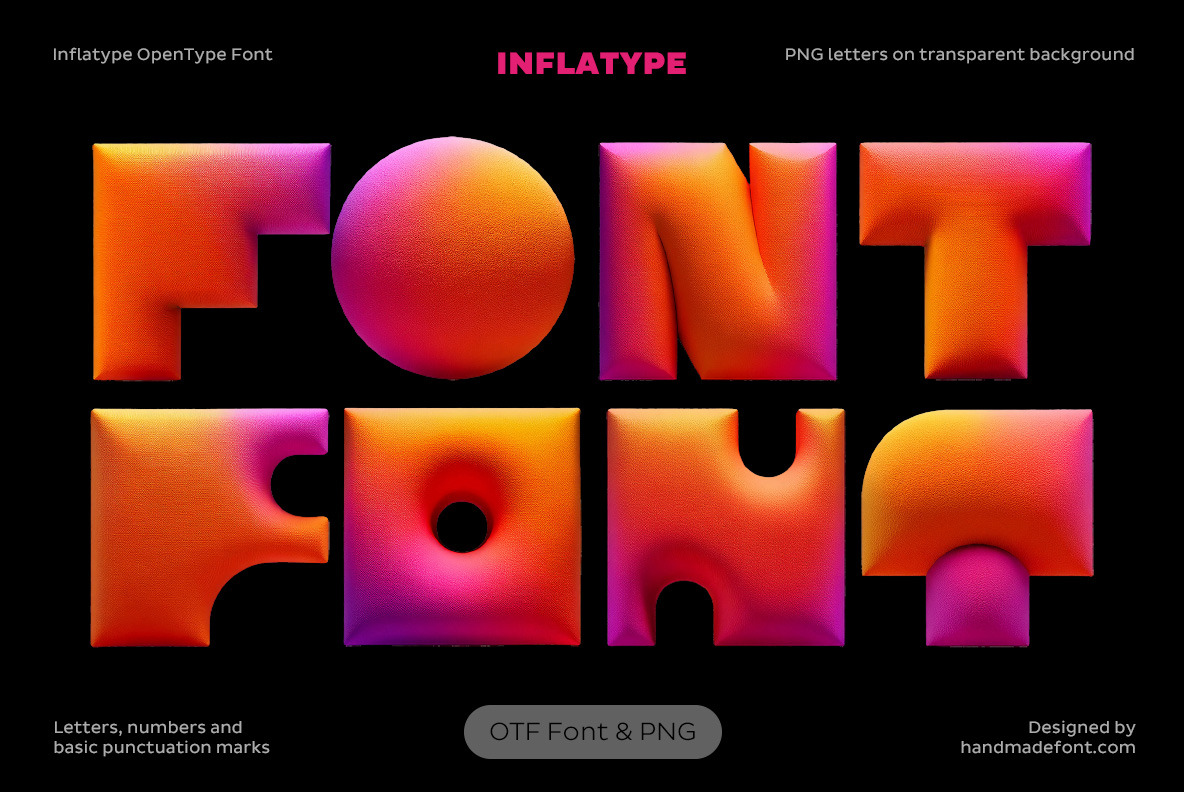
Inflatype Font
Inflatype Font is a bubbly, bold, and bouncy typeface that looks like it was sculpted from inflatable balloons and dipped in candy-colored gradients. With its squishy curves and playful volume, it brings a joyful, almost toy-like energy to any design. Perfect for posters, branding, games, kids’ content, or anything that dares to be loud and lighthearted. It’s typography with air in its lungs and a spring in its step—cheerful, dramatic, and impossible to ignore. Inflatype is where fun meets form, turning every letter into a soft statement. If you want to make your message float, fly, or dance—this is your font.
A high definition OpenType Font. Contains uppercase characters, numerals and basic punctuation. (Draw height roughly 800 pixels). All letters and glyphs that comprises this font you can see on the preview.